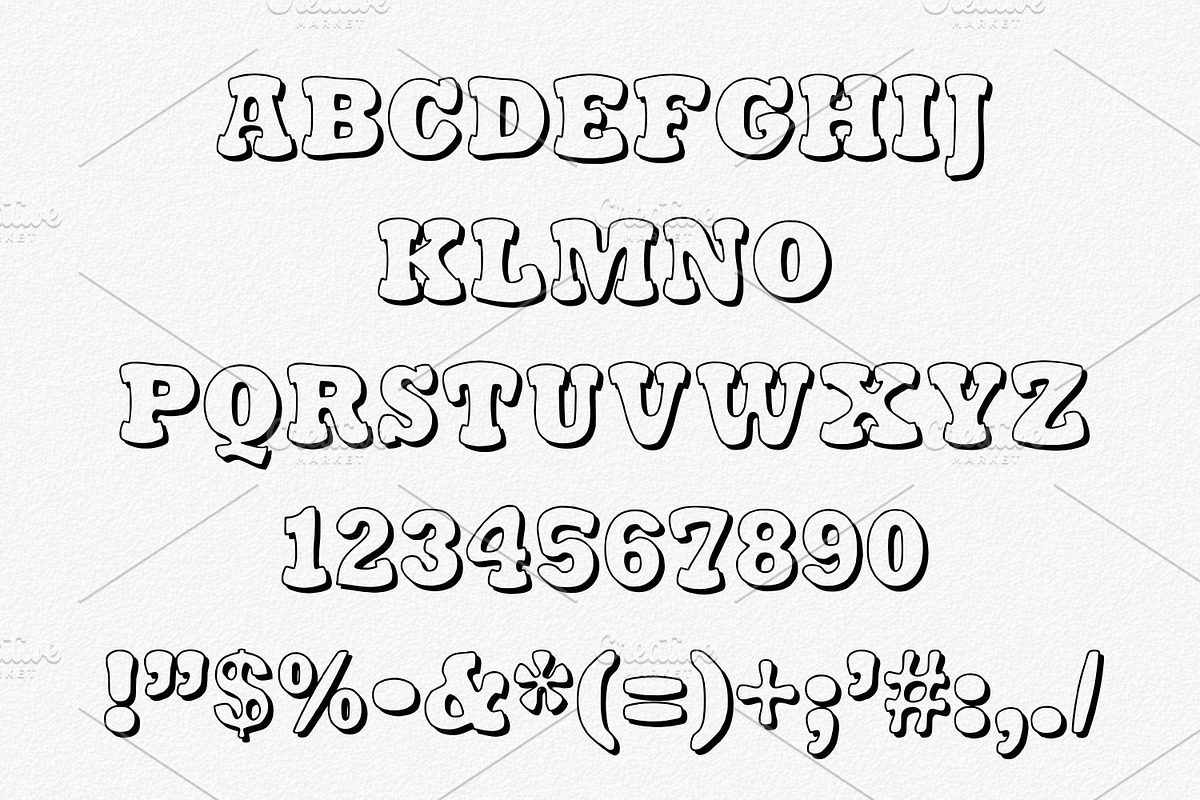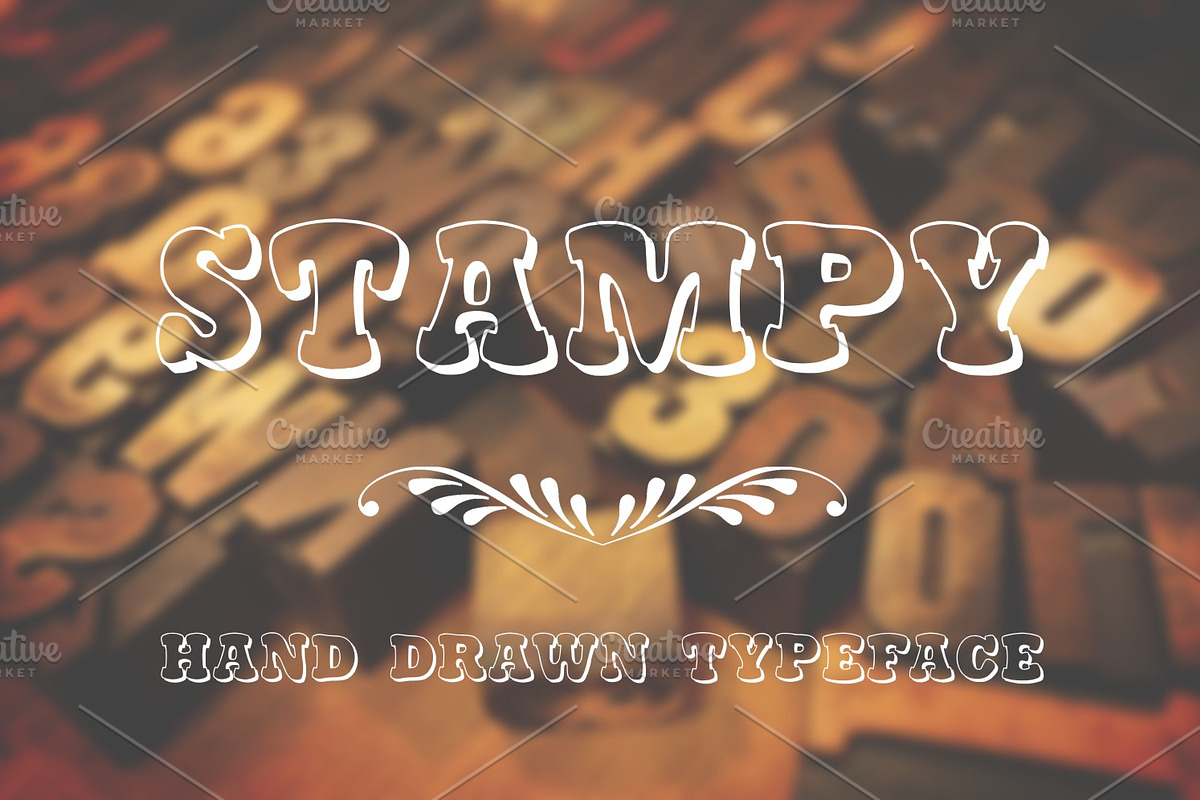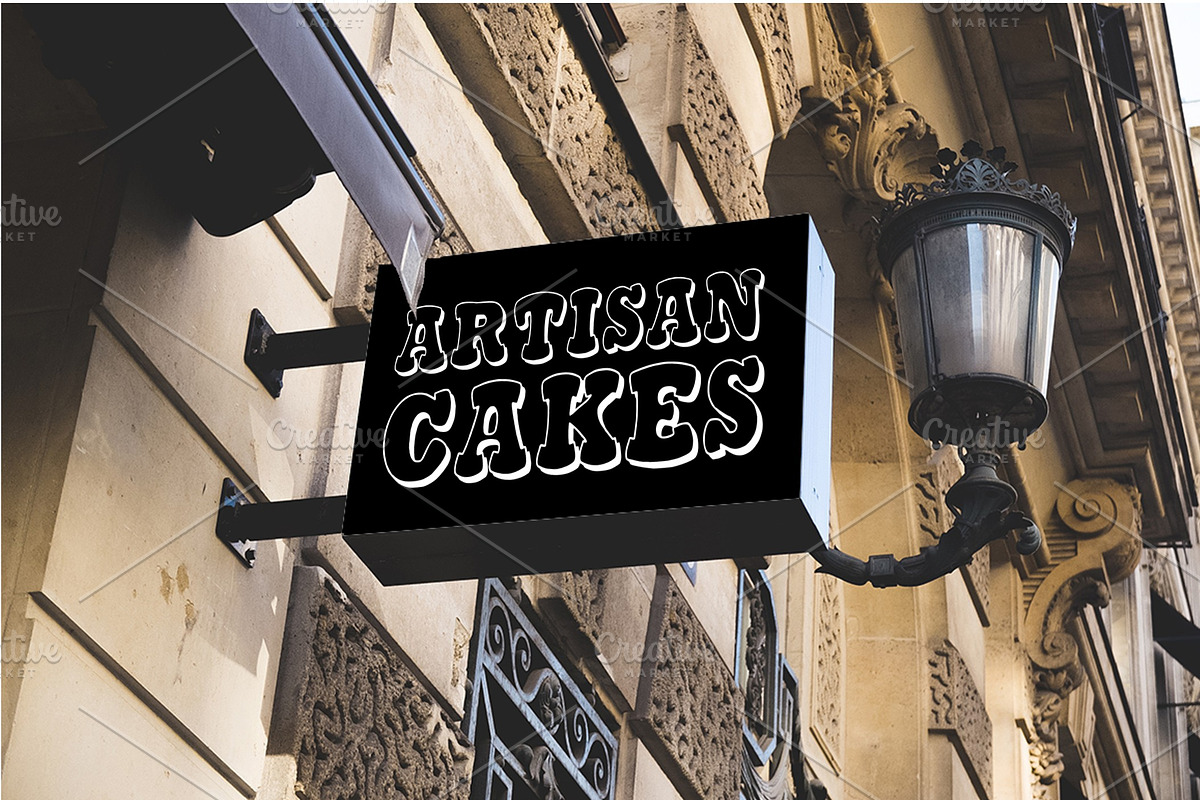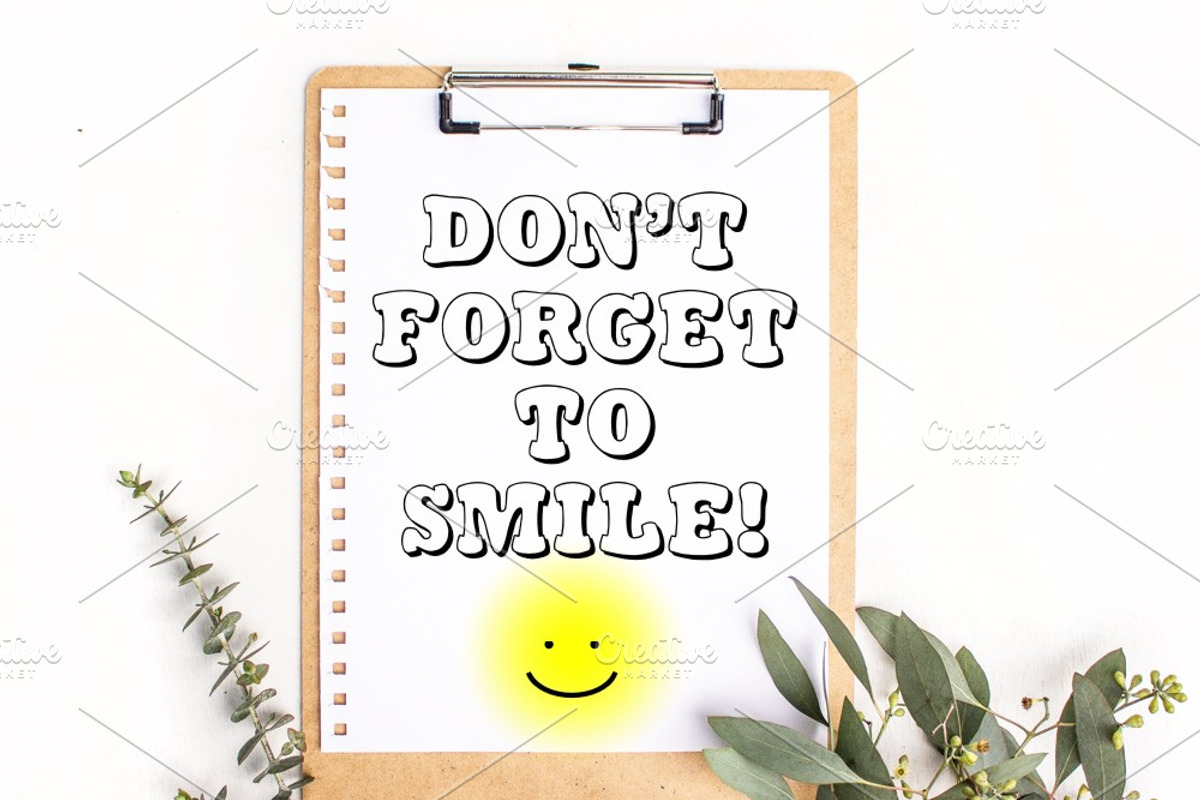
Stampy Font
Stampy is a hand crafted typeface. Great for branding, logos, titling, signage, poster, flyers or t-shirts design, headlines and more!
Stampy Font by Digital Typeface Studio fits naturally into Branding, posters, packaging, typography.